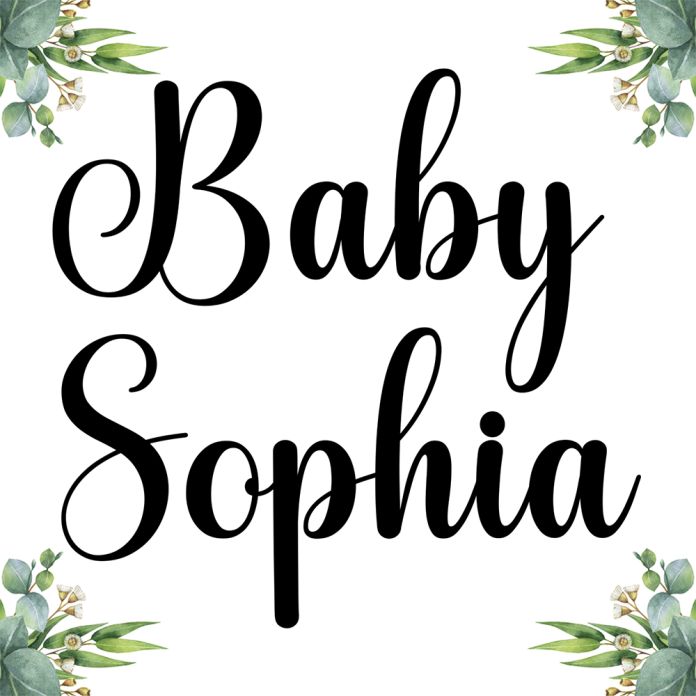
Baby Sophia is a beautiful, elegant, and modern handwritten font perfect for branding, logos, invitations, and many more. Add it to your creative projects and make them stand out from the crowd!